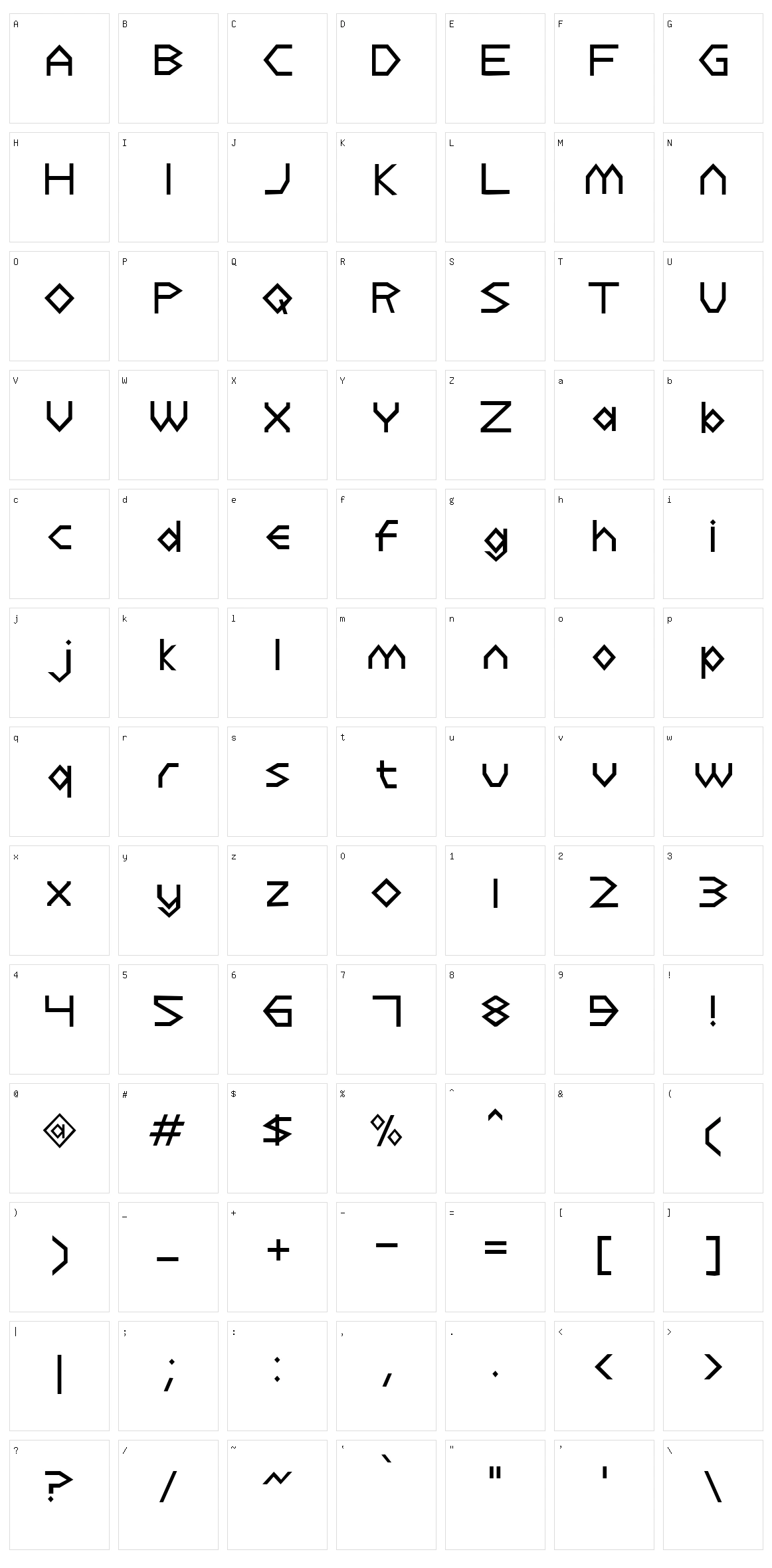
Dulethia
Designed by: Tepid Monkey
Description: The free font Dulethia is carefully designed by Tepid Monkey, showcasing a thoughtful balance of creativity and usability and belongs to the Gothic font family. When you download the ZIP file, it contains only 23.26 KB of font files, making it lightweight and quick to download. Please review the license details below to understand permitted usage and distribution rights. If license information is not available, we recommend using this font for personal projects only or contacting the author directly for commercial usage permissions.